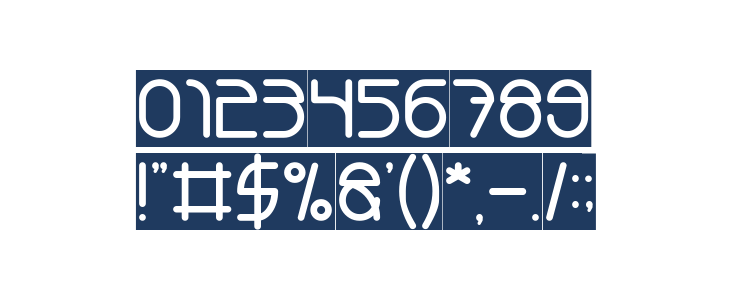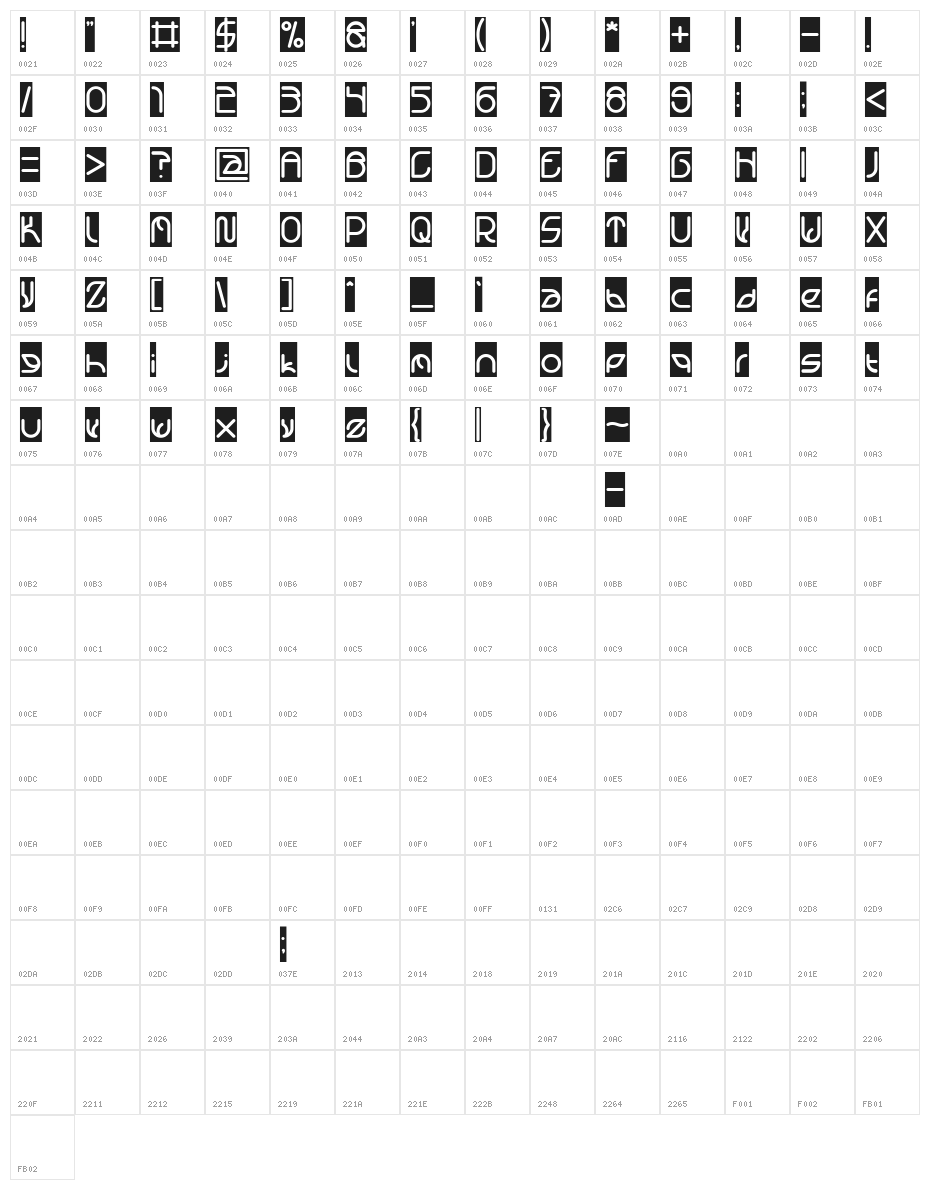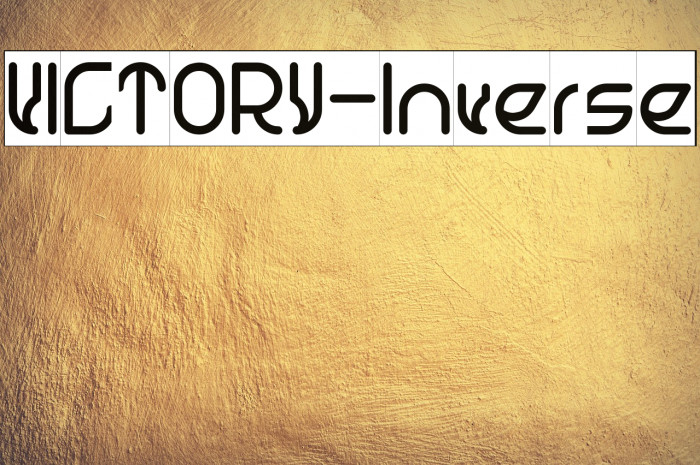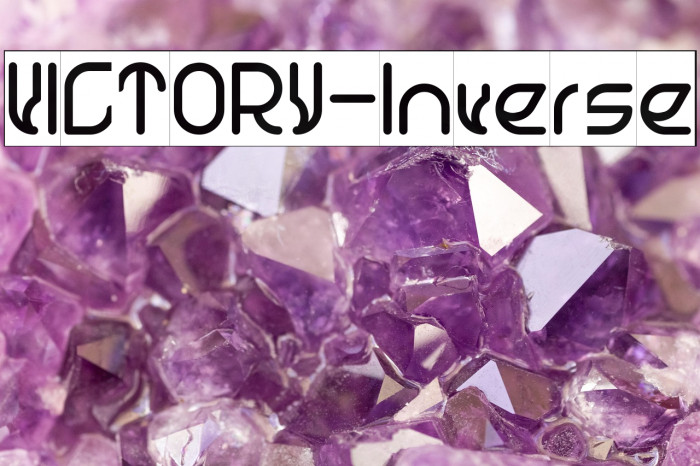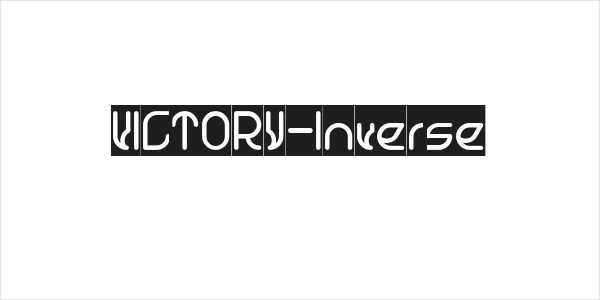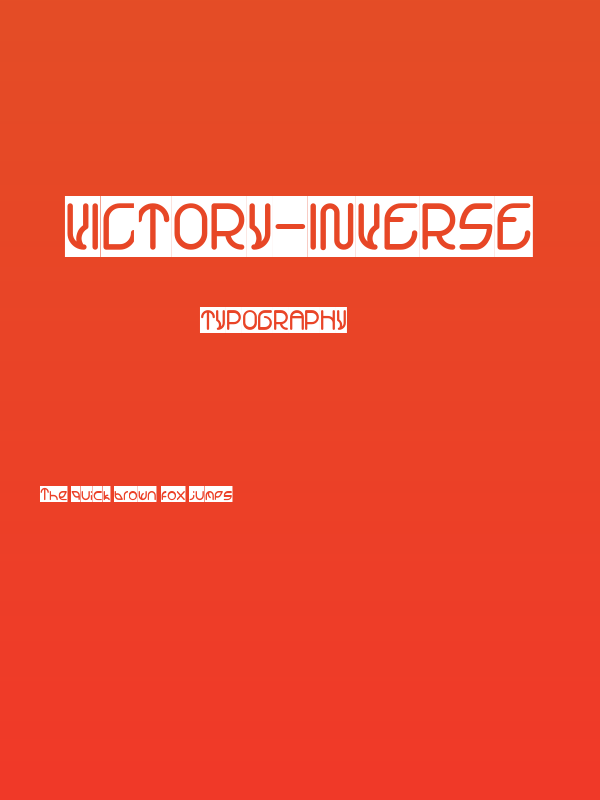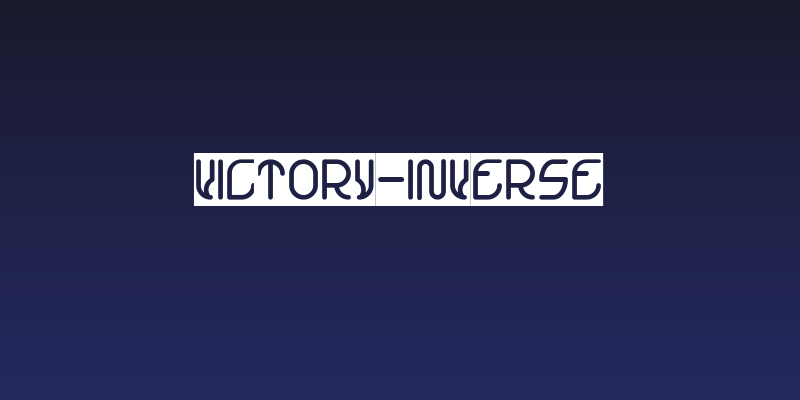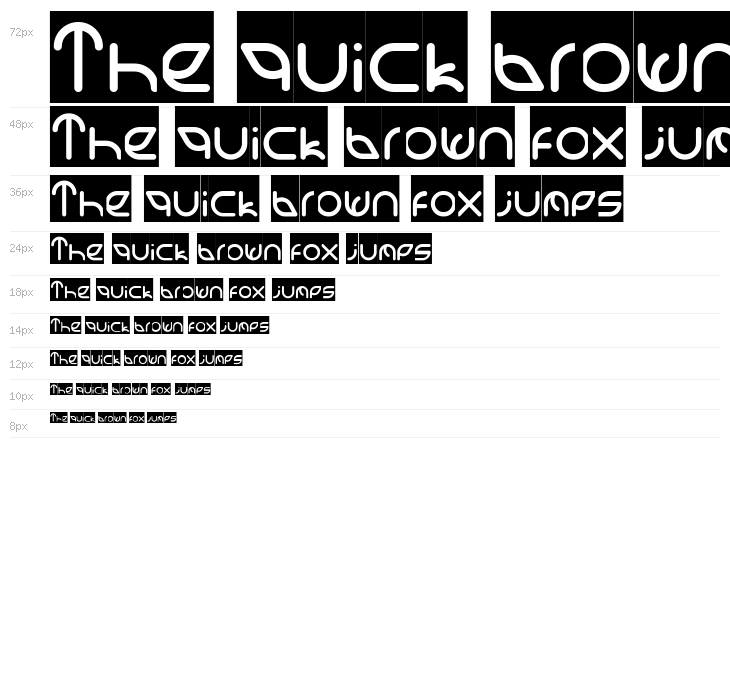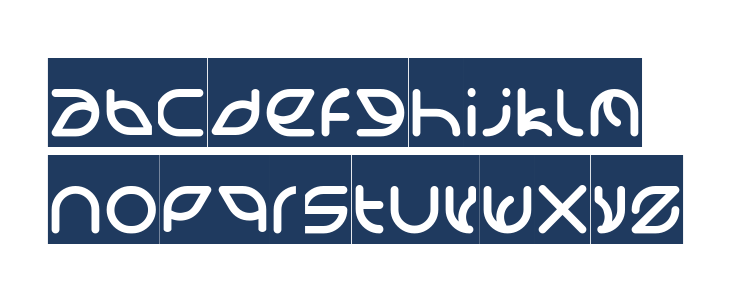
VICTORY-Inverse Font
VICTORY-Inverse Description
This font features a futuristic and geometric design with rounded edges and a consistent stroke width. The characters are constructed with a blend of straight lines and smooth curves, creating a modern and sleek appearance. The uppercase and lowercase letters maintain a uniform style, enhancing readability while adding a unique flair. The numerals and special characters follow the same design principles, ensuring a cohesive look across all elements. This font is ideal for projects that require a contemporary and innovative touch.
| Overall Style | Futuristic |
| Use Case | Headlines, Logos, Digital Interfaces |
| Proposed Projects | Ideal for tech branding, modern advertisements, digital interfaces, and sci-fi themed designs. |